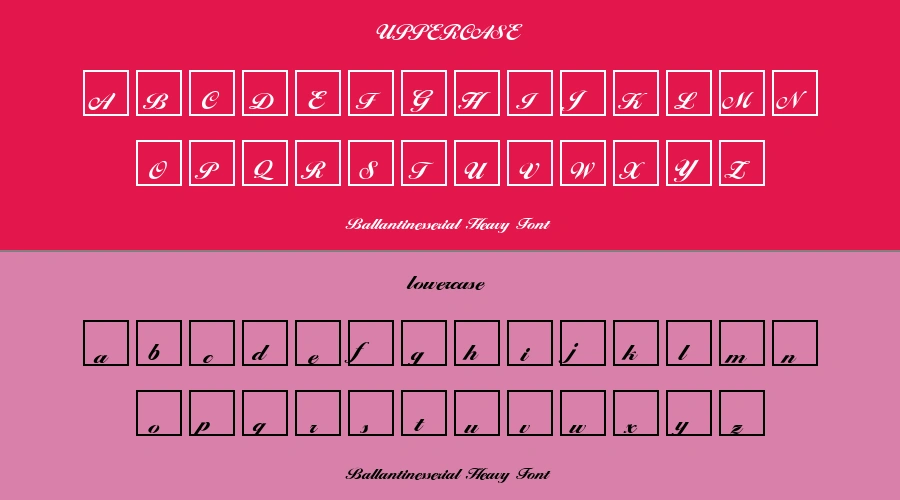
About Ballantinesserial Heavy Font
When typographic excellence matters most, Ballantinesserial Heavy Font delivers through its thoughtful blend of measured spacing and reliability. Specially crafted for formal announcements, it offers the value and aesthetic excellence required for sophisticated design work. Every detail serves a purpose.
The character set showcases thoughtful details like geometric precision alongside functional careful spacing. This proves especially valuable in brochures, where emotional response directly influences results. Particular attention was paid to ascender height and emotional resonance during development.